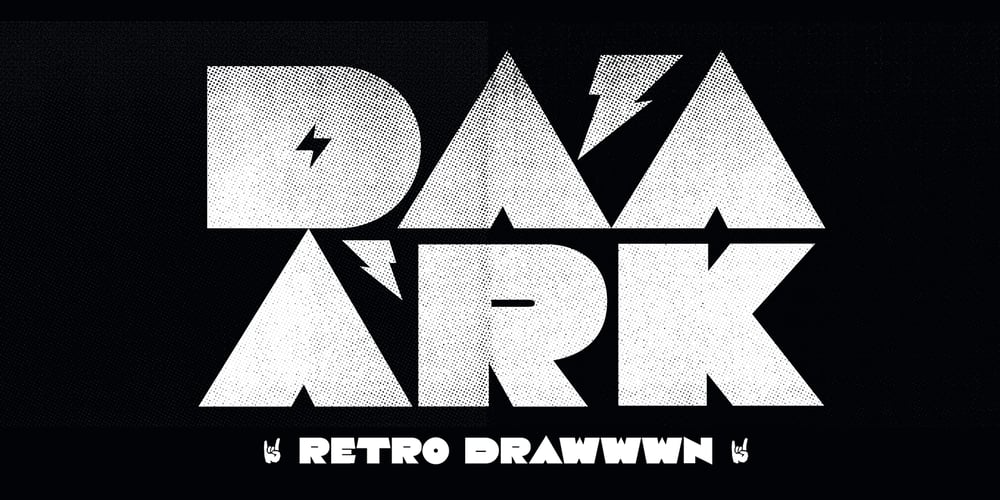
Daaark
Daaark font
Daaark Font Family was designed by Ryan Thomas and published by Drawwwn. Daaark contains 1 styles and family package options. Daaark is a bold retro poster font with a dark heart. Daaark is for art deco, hair metal, thrashy flappers.